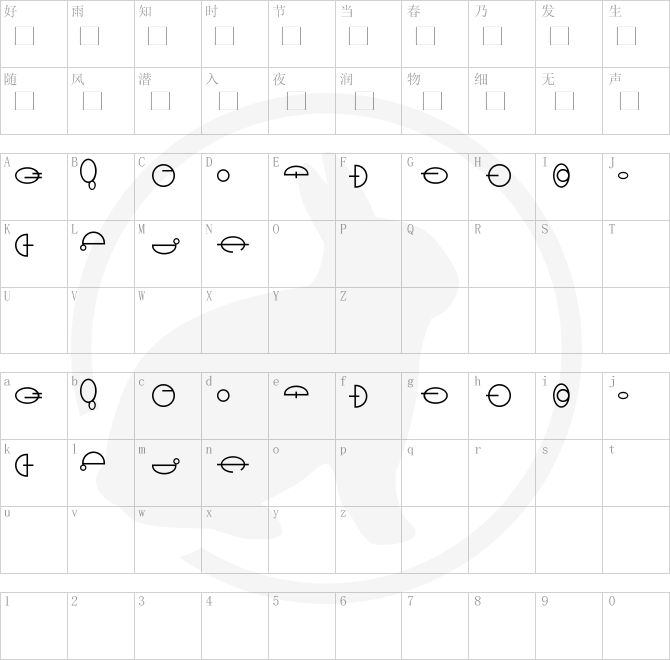
- Font Name:Naboo
Naboo.ttf is a very beautiful artistic font, Naboo.ttf is widely used in the design and printing of various books and pictures,Naboo.ttf has a strong visual impact,Naboo.ttf is a commonly used font in newspapers, magazines and books, and is used in posters, e-commerce Poster design, store design, logo design, font design and other fields.Naboo.